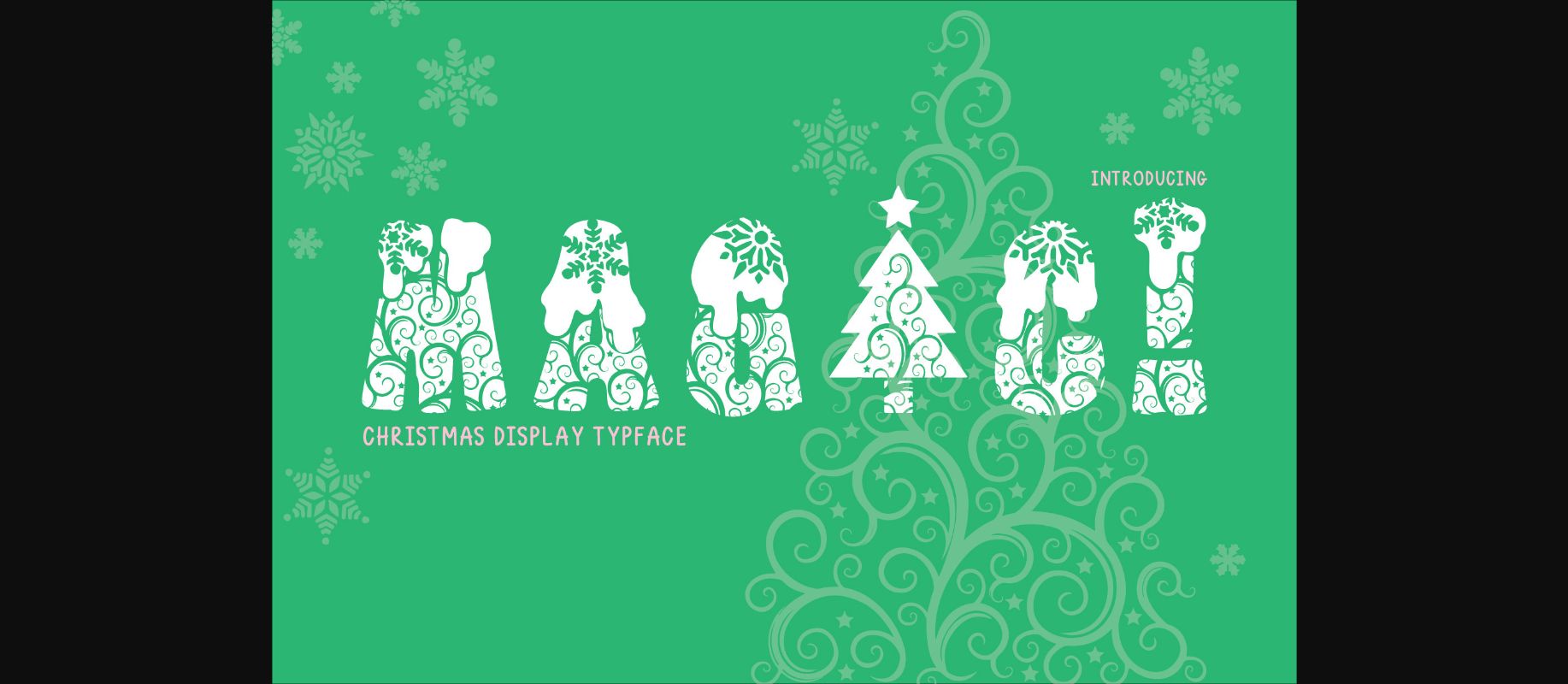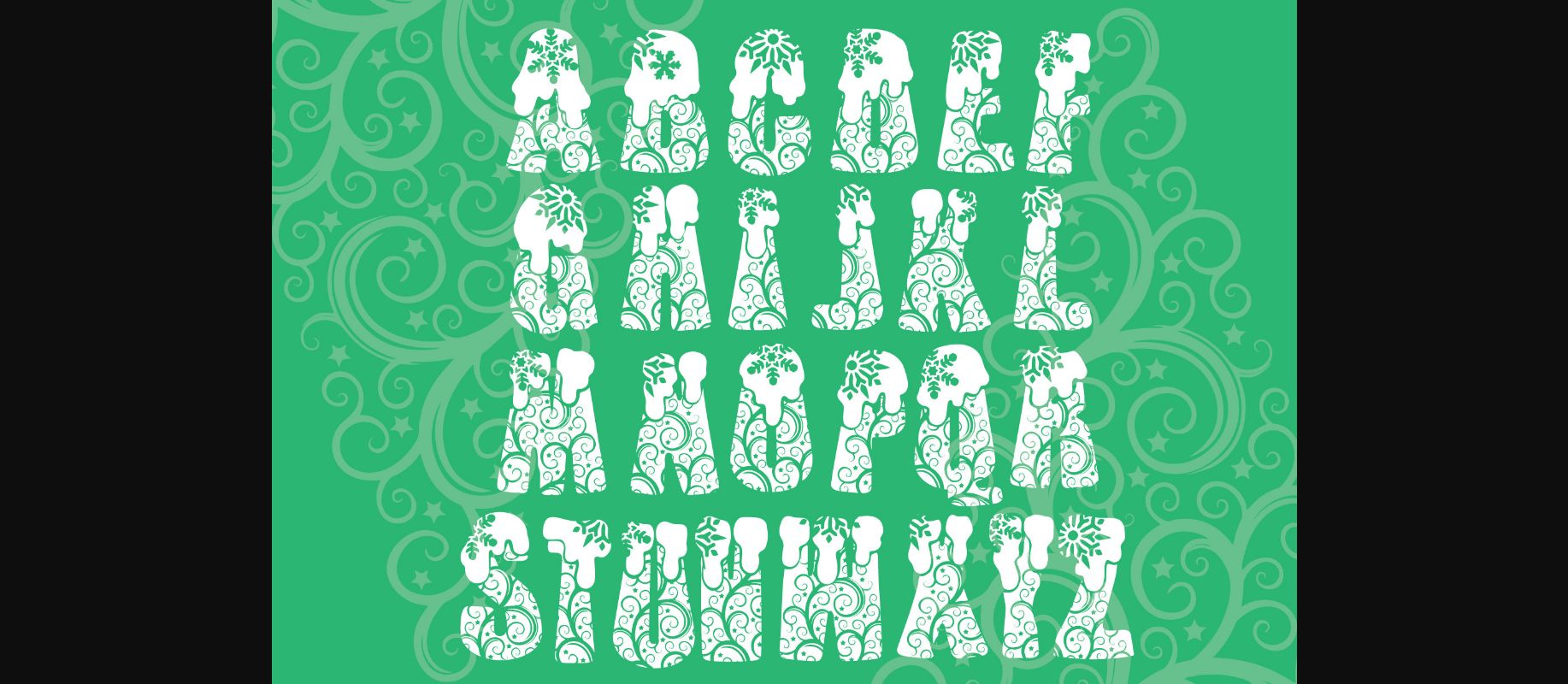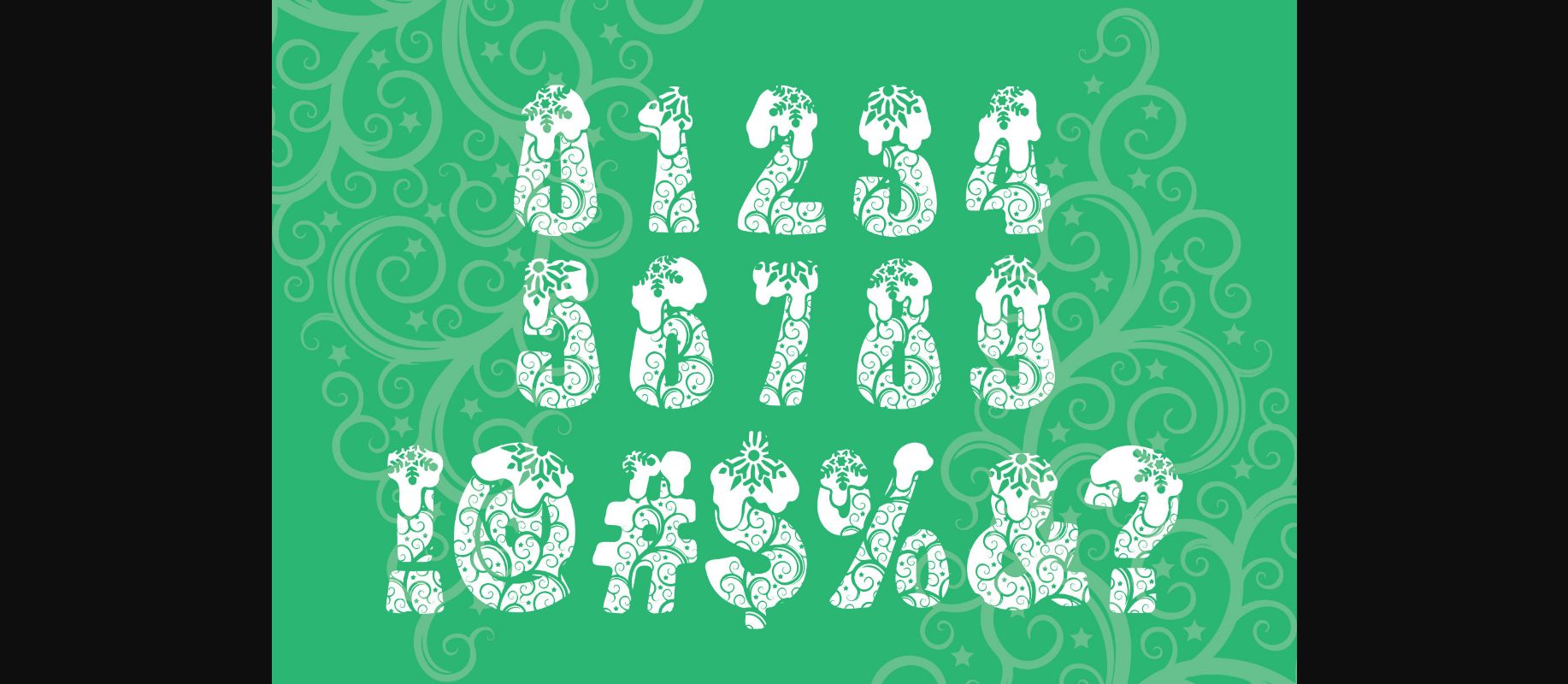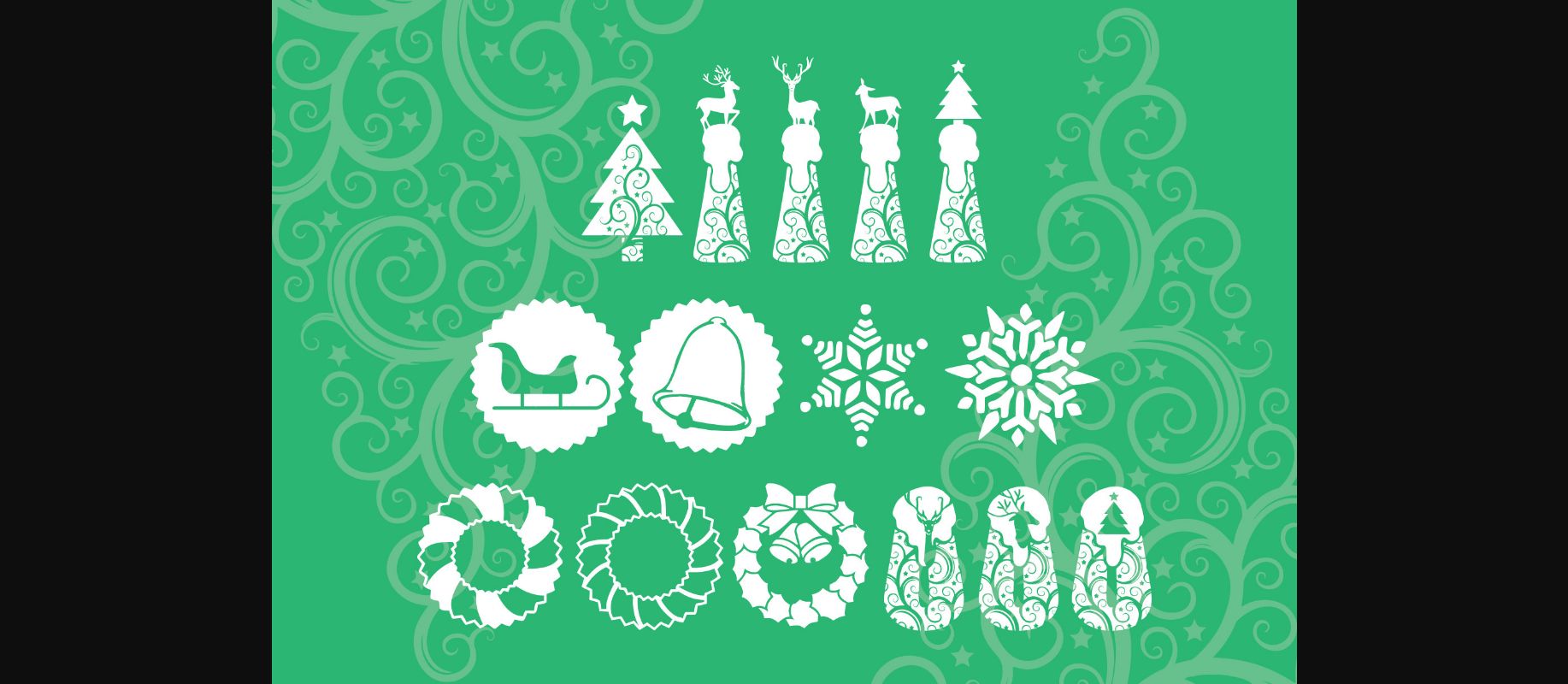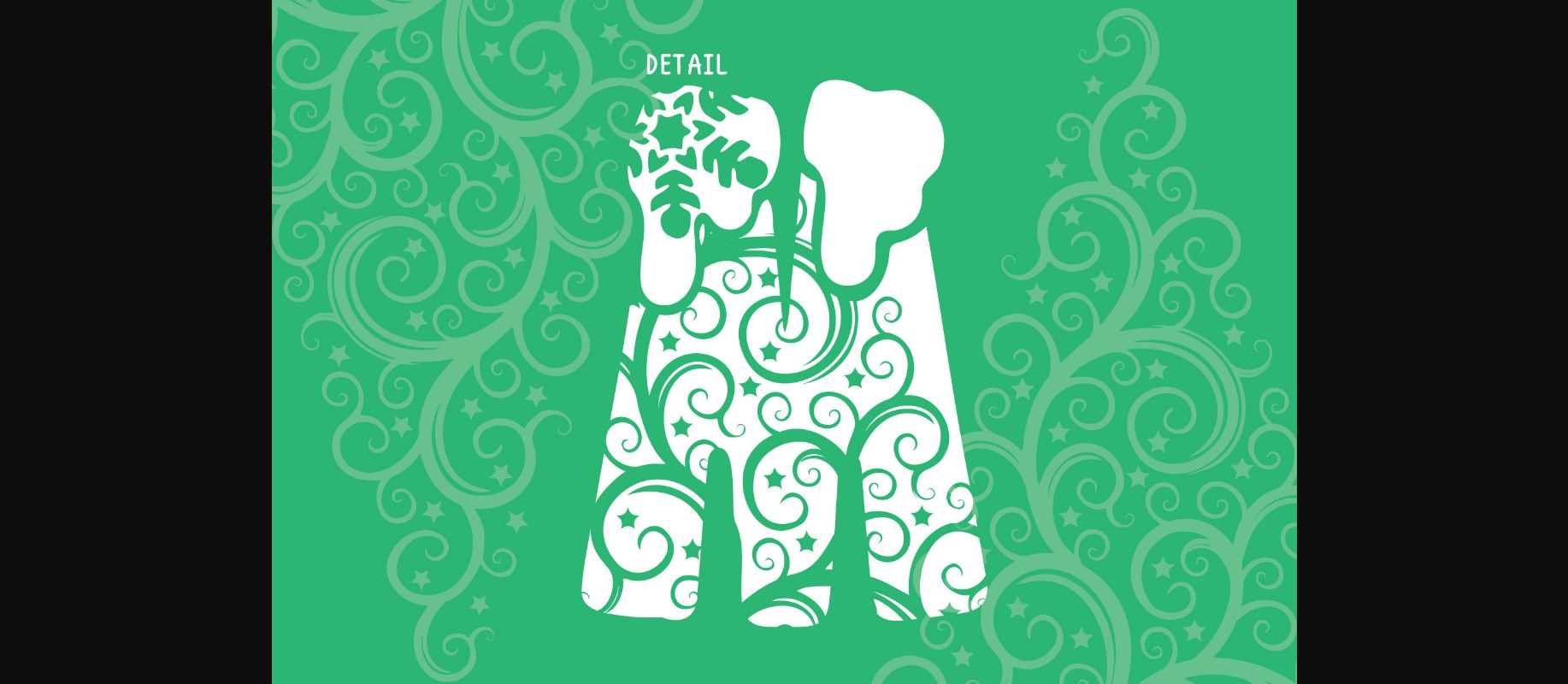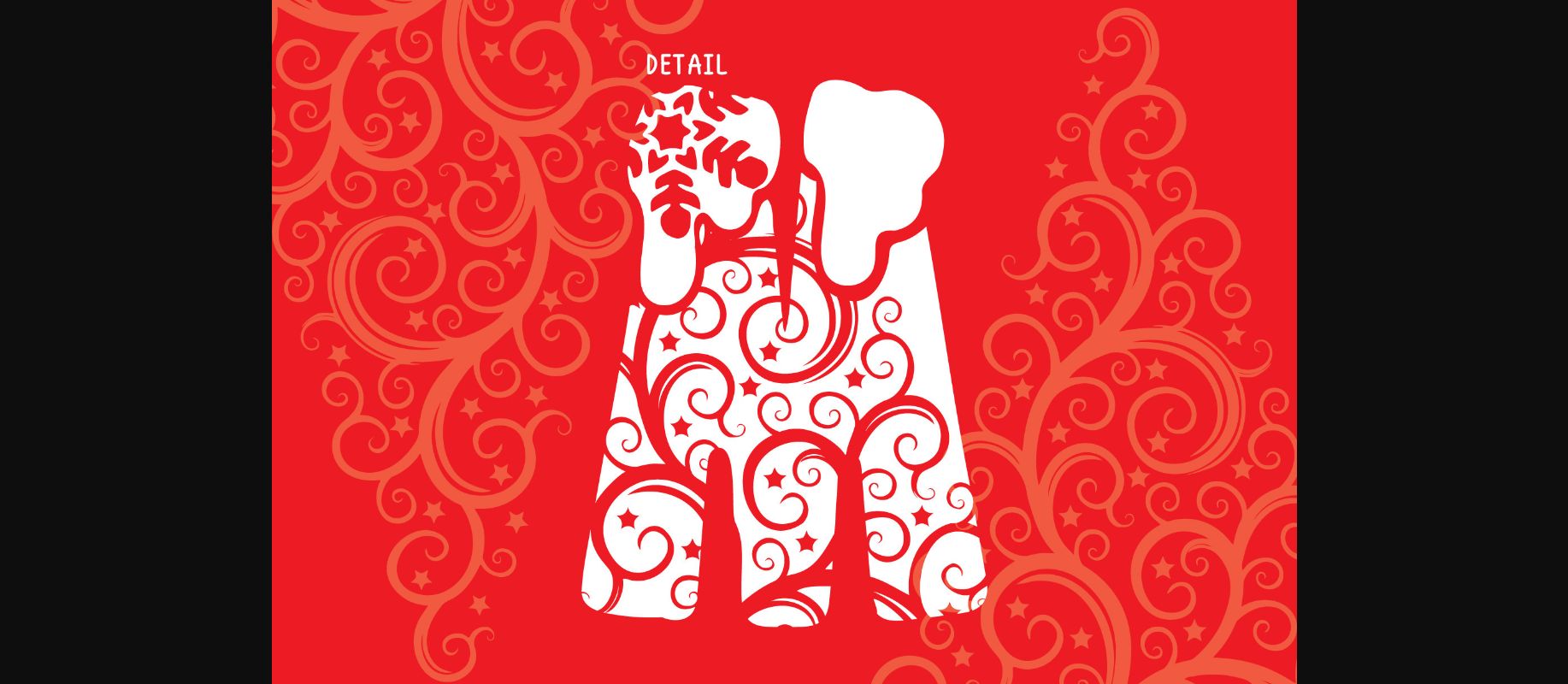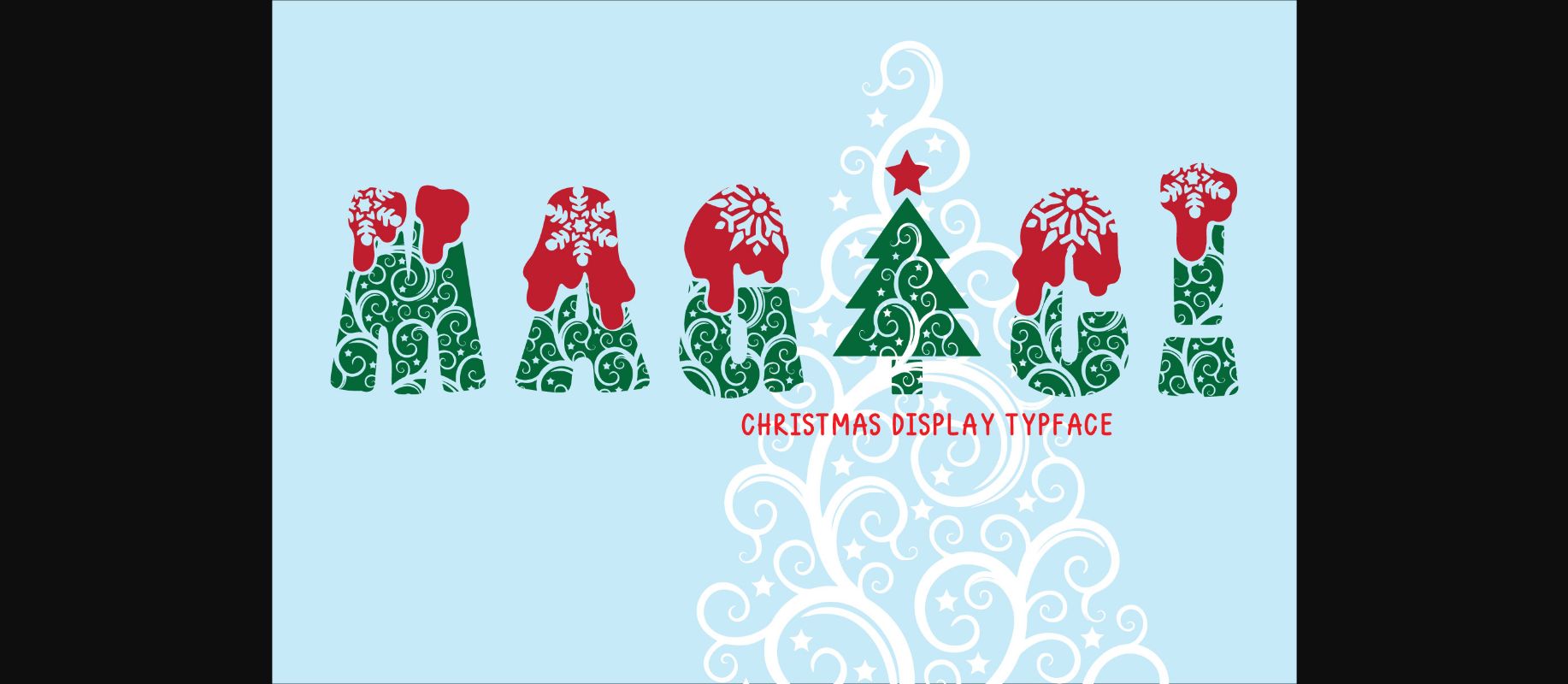
Magic! is a fun, retro, and unique decorative font. Incredibly versatile, this font is suitable for a wide spectrum of applications. This font is PUA encoded which means you can access all the glyphs and alternates with ease!